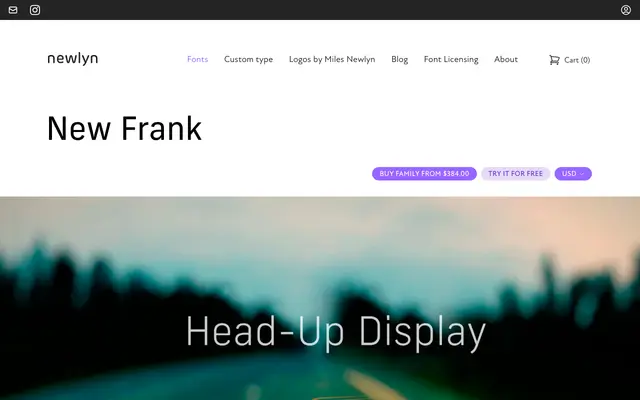
New Frank Italic
The italic companion to New Frank, a grotesque sans available in six weights with condensed and compressed variants.
Matching the upright New Frank in six weights from Thin to ExtraBold, these italics complete a family that extends across three widths: standard, Condensed and Compressed. The specimen copy leans heavily on transport and rail operators as use-case references, suggesting the family is oriented towards signage, wayfinding and functional editorial work. Clean and unshowy, it sits comfortably in contexts where legibility across weights matters more than personality.
New Frank is a grotesque sans-serif with condensed and compressed variants, following the tradition of gothic/grotesque industrial type. The italic cuts reinforce its functional, workhorse character.